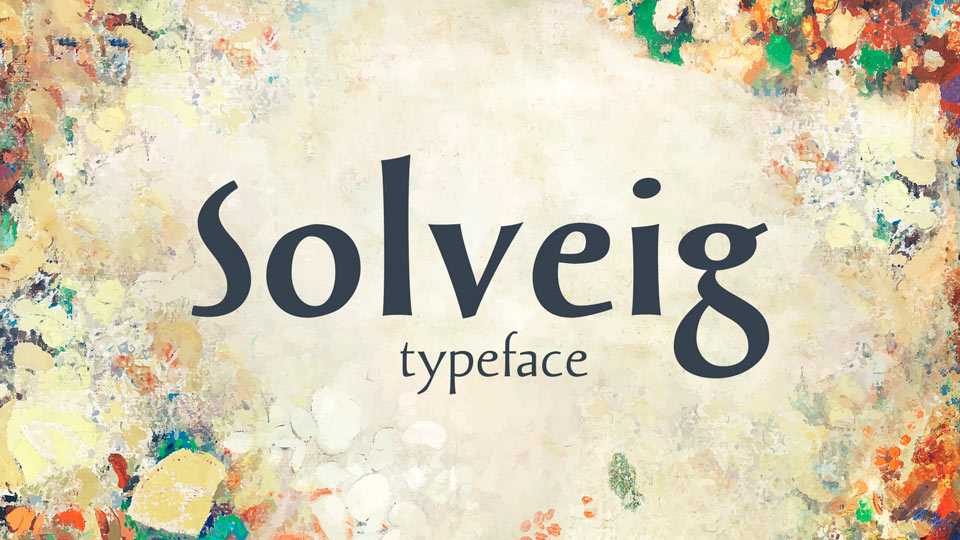
Download Solveig typeface, a stressed sans serif font family in three weights and Italics, that draws inspiration from calligraphy and classic inscriptions.
Designer: Chuck Masterson